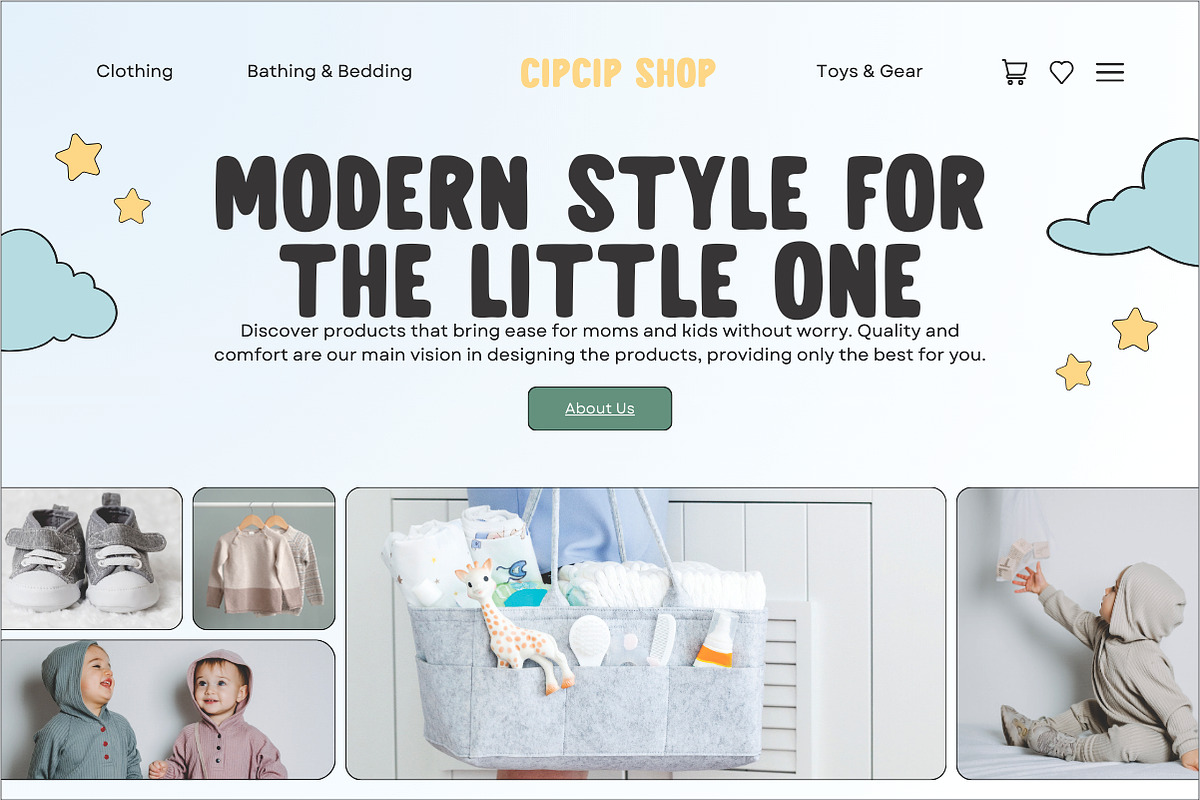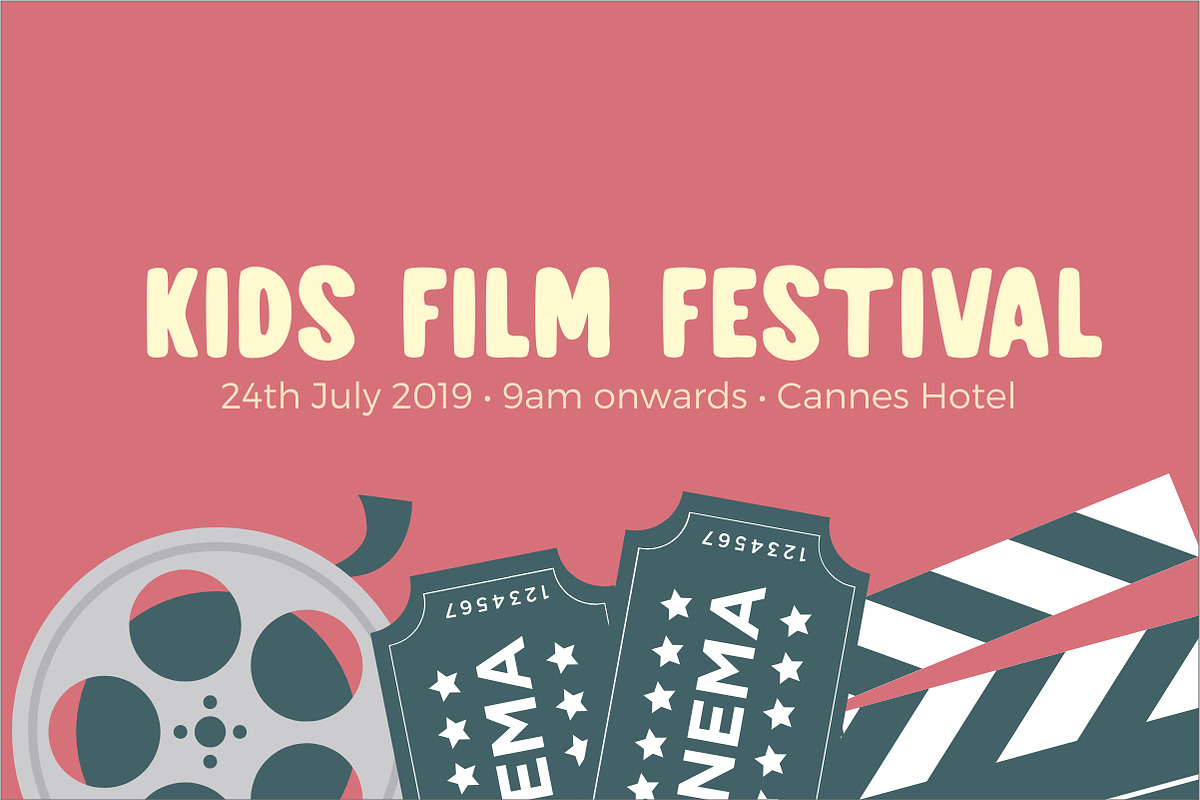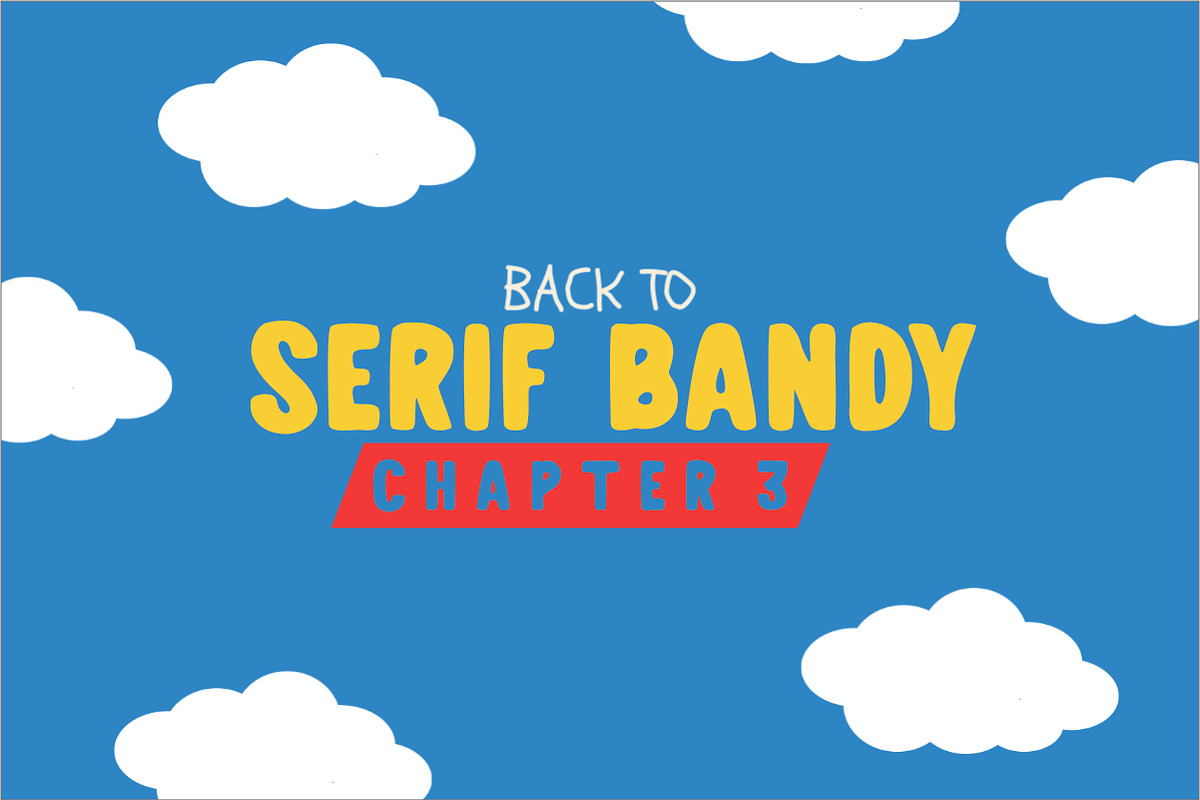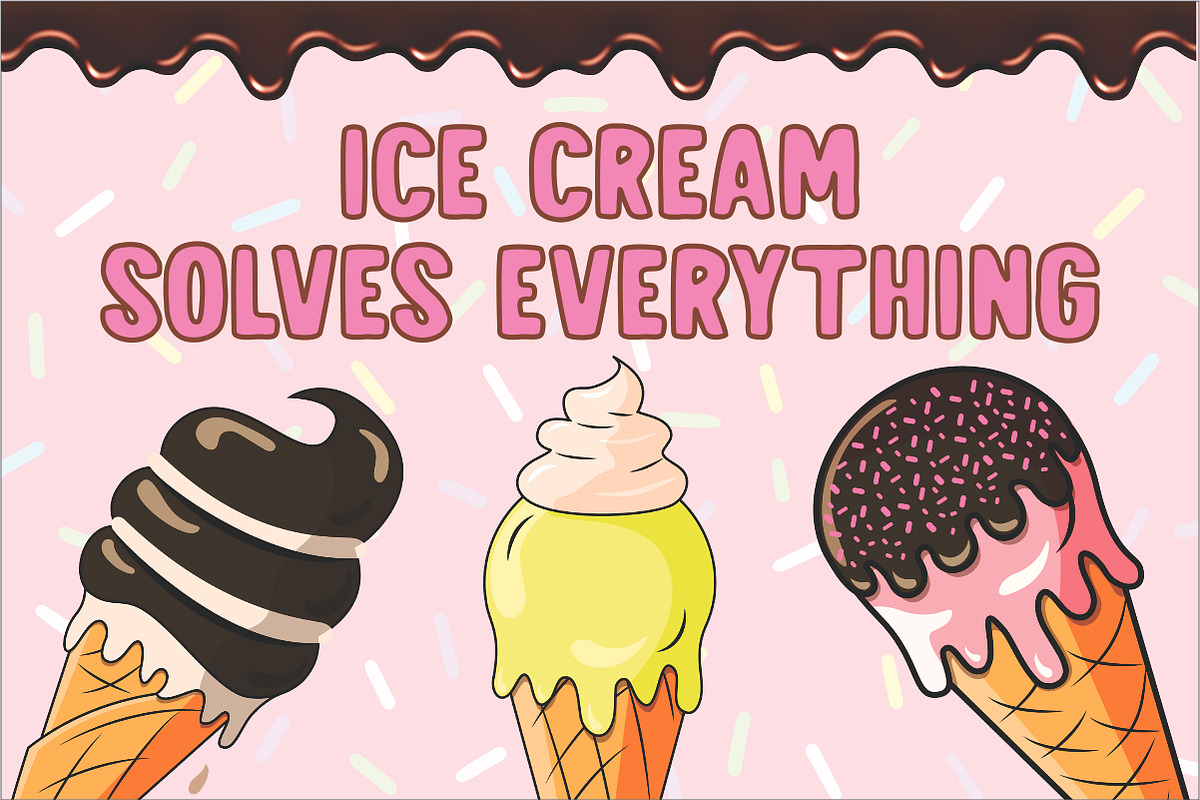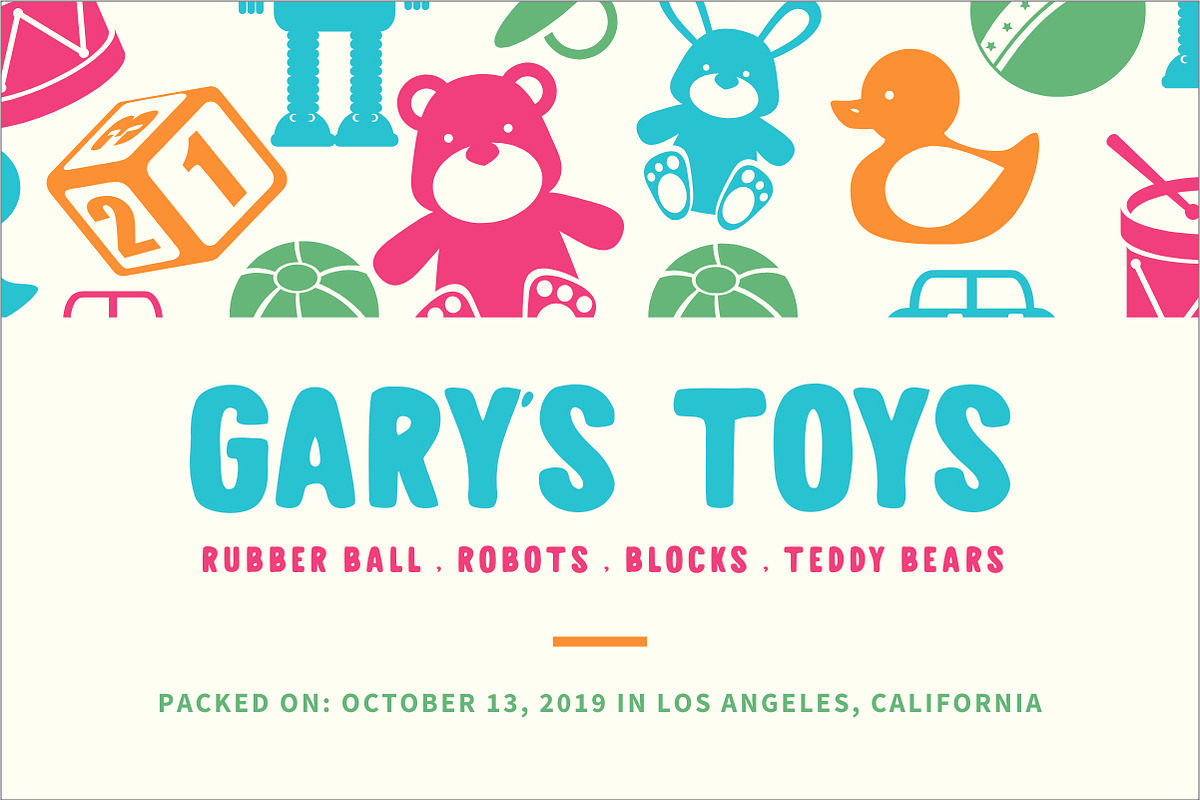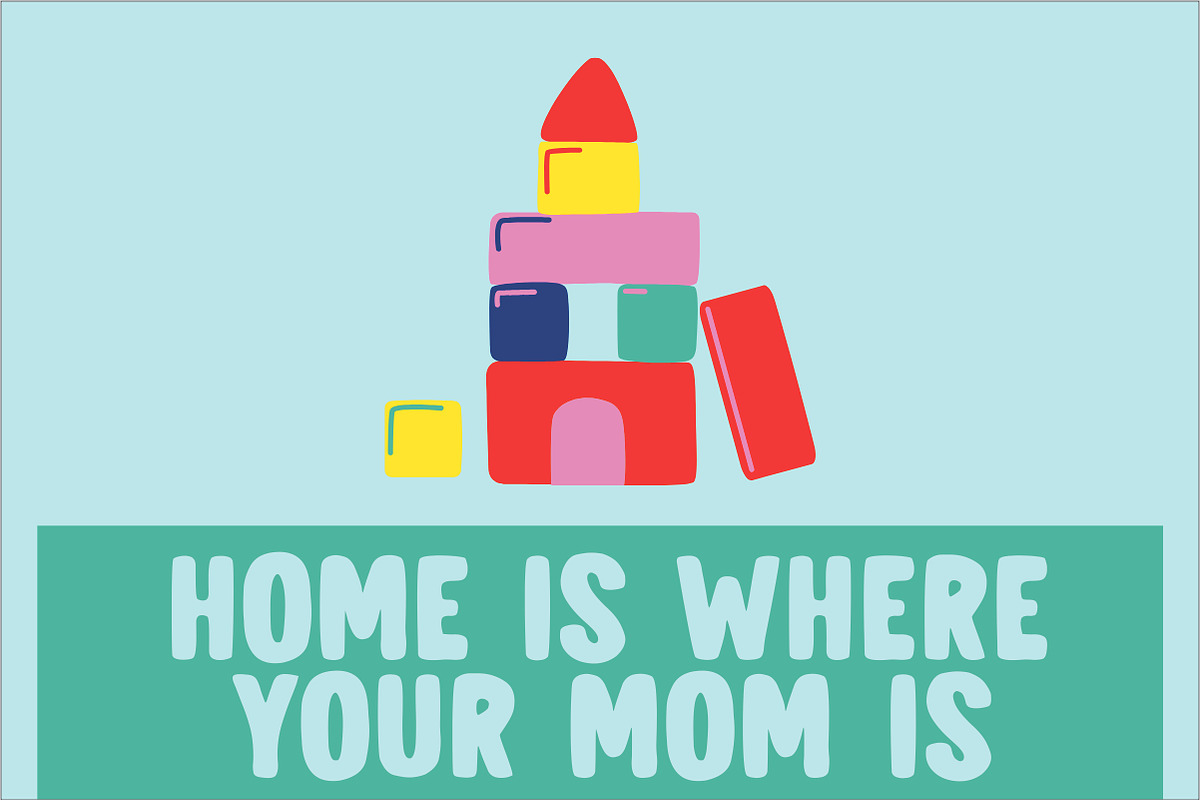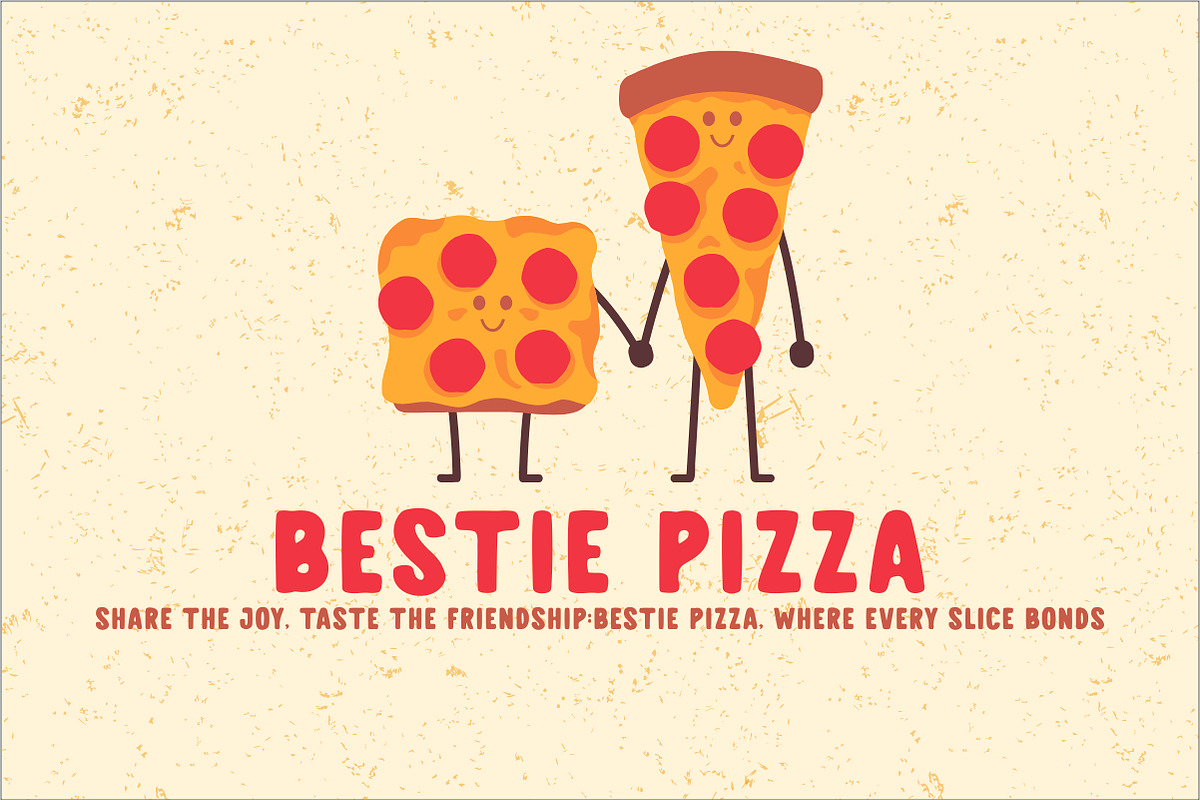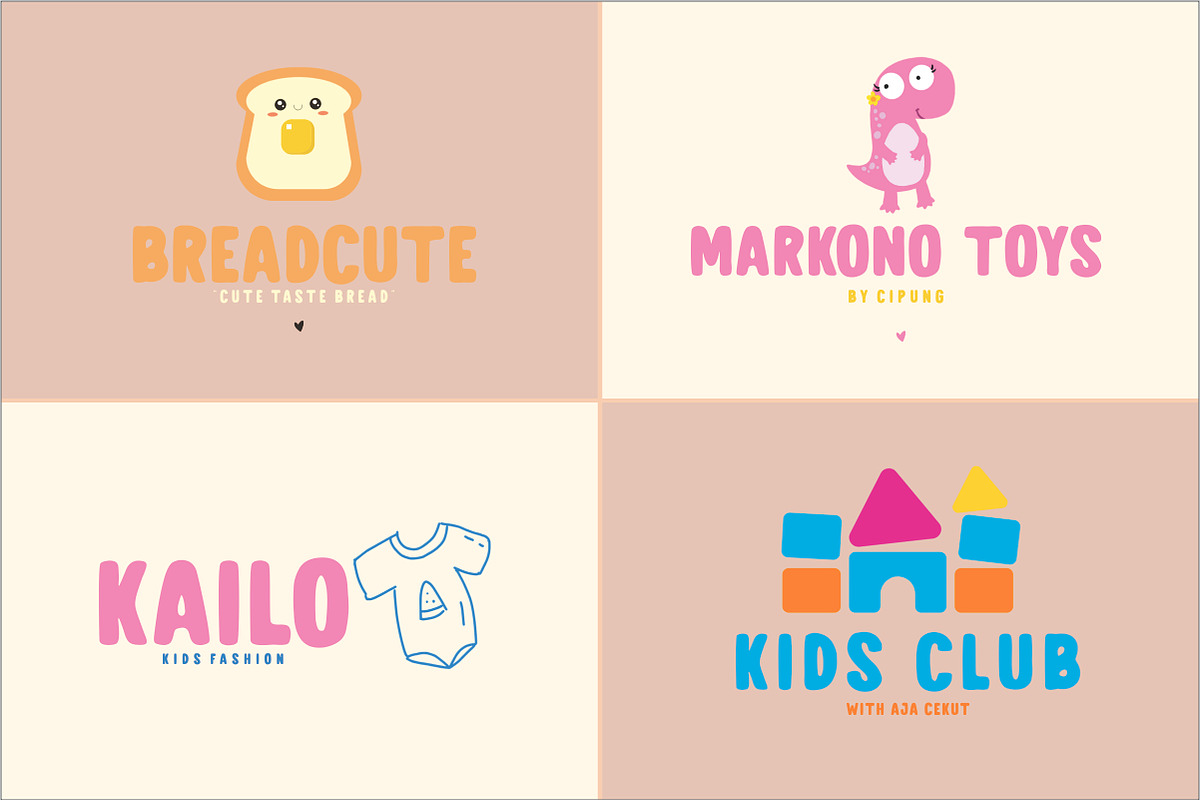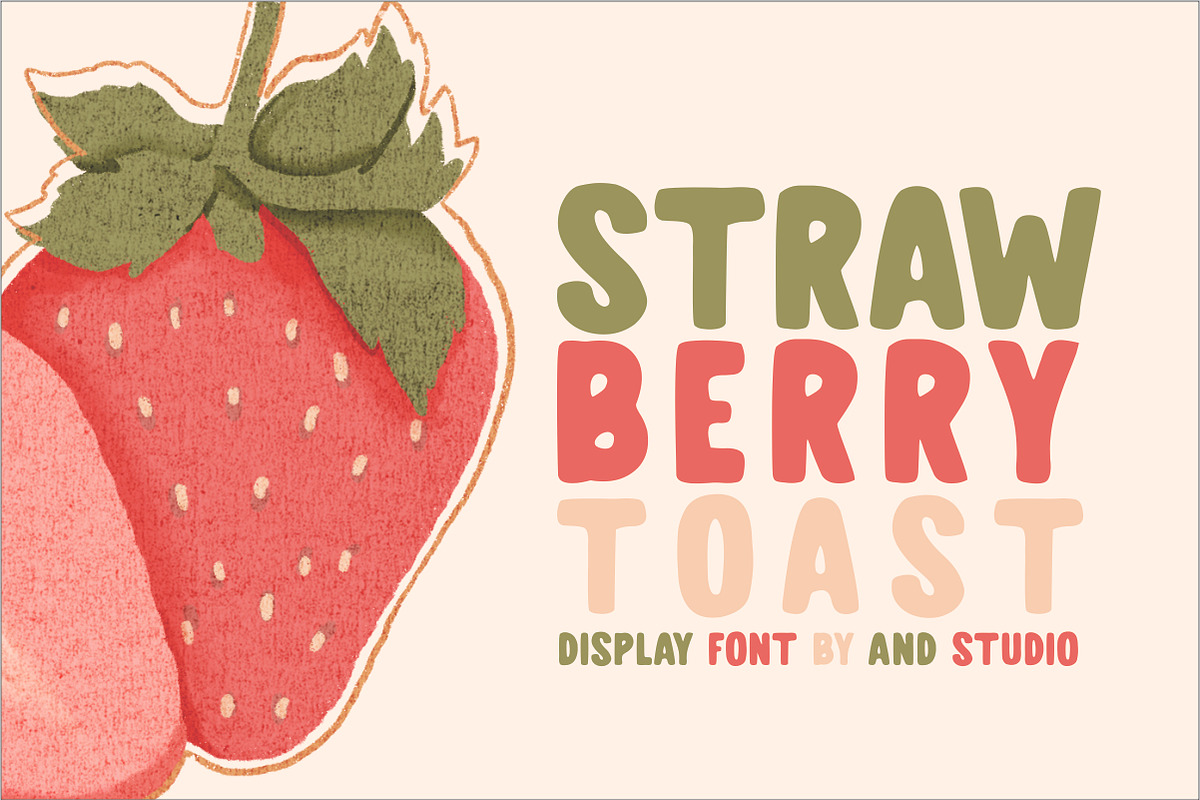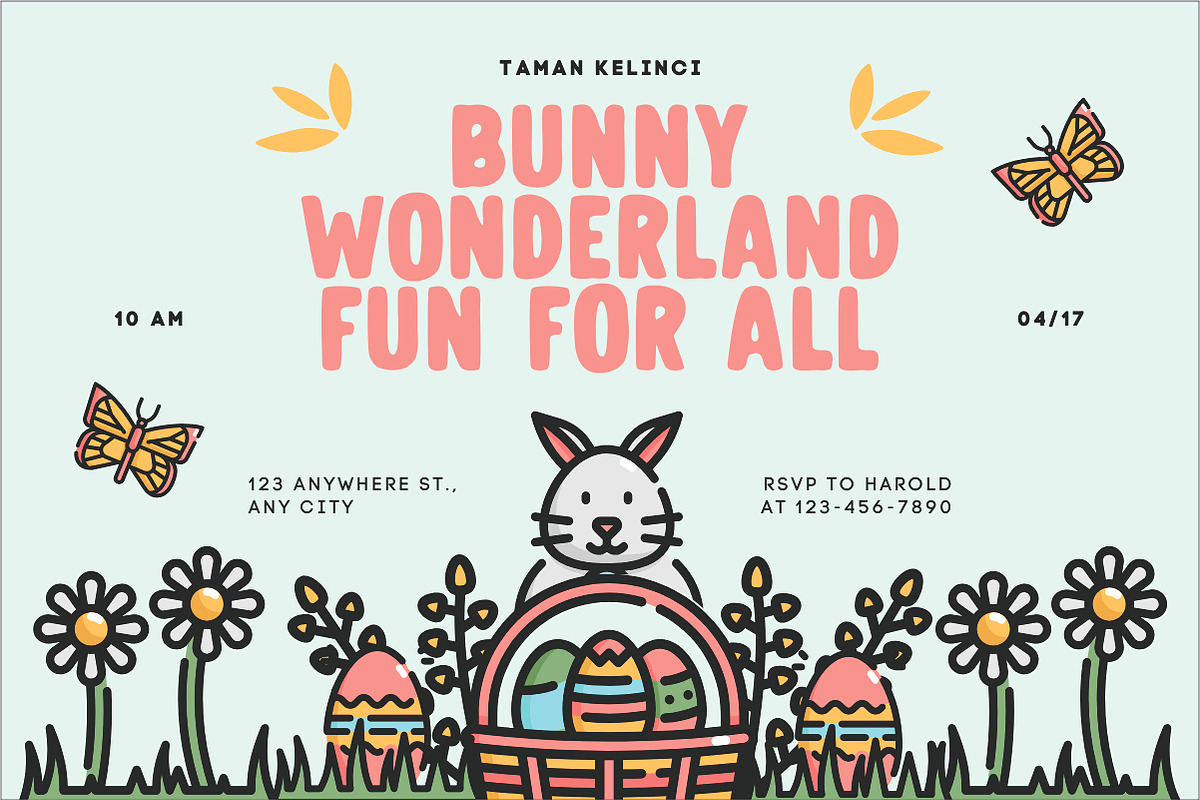
Strawberry Toast
Welcome to a world full of color and joy with 'Strawberry Toast'! This display font is the perfect blend of cute uniqueness and retro touch, providing a classic allure that's simply irresistible. With its unique design, each letter is like a small piece of sweet childhood, exuding an endearing charm and sparking imagination.
With 'Strawberry Toast', you'll feel a delightful sense of nostalgia, as if wandering through the aisles of classic ice cream parlors or vintage toy shops. Every line and curve offers an inviting creative touch, making it perfect for projects requiring a cheerful and captivating vibe.
Whether you want to add a vintage touch to posters, merchandise, or other graphic designs, 'Strawberry Toast' will be your faithful companion. With its ability to captivate attention with gentleness and cheerfulness, this font is not just text but a delightful story in every character.
So, are you ready to savor the visual delight of 'Strawberry Toast'? Use this font now and let your creations shine with warmth and joy!